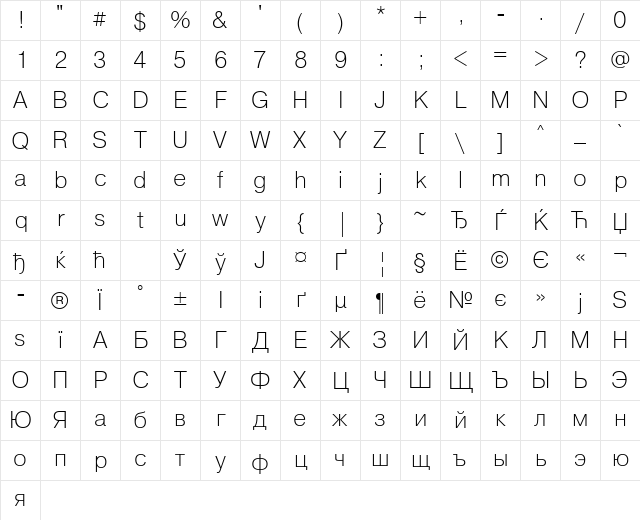
PragmaticaLightCTT Regular Free Font
PragmaticaLightCTT Regular
Design Context for PragmaticaLightCTT
PragmaticaLightCTT is a composed and adaptable typeface that performs quietly and consistently across a wide range of design contexts. Its slender proportions lend an understated elegance to any composition.